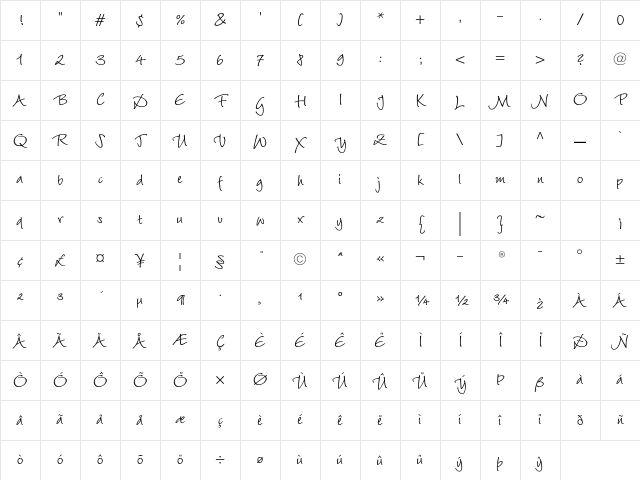
Wiesbaden Swing LT Std Roman
Designer: Rosemarie Kloos-Rau
Design Context for Wiesbaden Swing LT Std
Wiesbaden Swing LT Std is a composed and adaptable typeface that performs quietly and consistently across a wide range of design contexts. Its slender proportions lend an understated elegance to any composition.